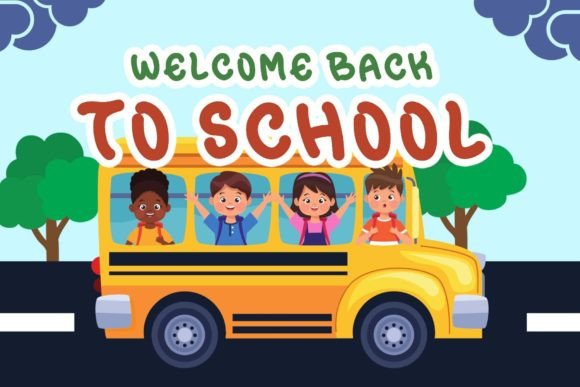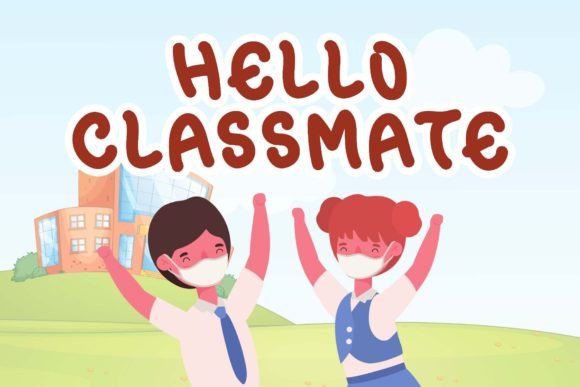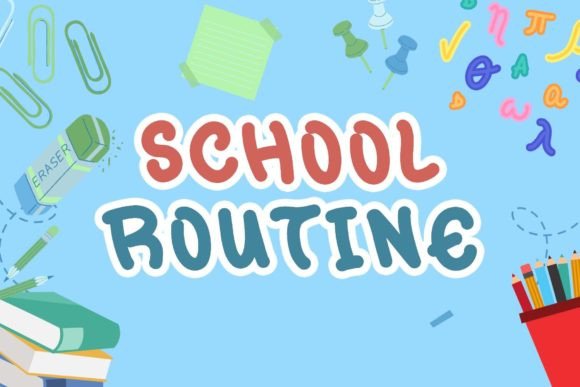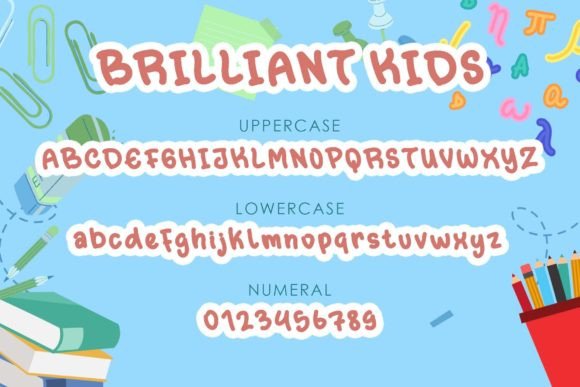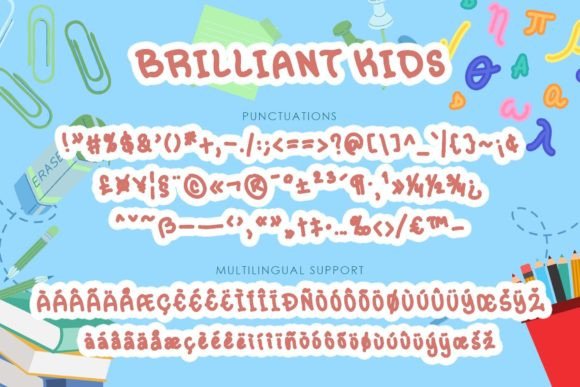
Unlocking Creativity with the Brilliant Kids Font
Do you remember the thrill of holding a freshly sharpened pencil, waiting for the school bell to ring, and diving into a world of imagination and creativity? For many of us, the back-to-school season is a time of nostalgia and excitement. As designers, we strive to capture this essence in our work, making it relatable and engaging for our audience.
That’s where the Brilliant Kids Font comes in – a charming display font designed specifically for kids and young at heart. With its playful characters, multilingual support, and versatility, this font is a treasure trove for designers looking to create eye-catching projects. Whether you’re working on a summer campaign, a Christmas card, or a graduation announcement, the Brilliant Kids Font is sure to bring a smile to your audience’s faces.
Brilliant Kids Font Key Features
- Unique Character Set: The Brilliant Kids Font features a custom-designed character set, including letters, numbers, and symbols, specifically tailored for young readers and writers.
- Font Size and Resolution: The font is designed to be highly legible at various font sizes and resolutions, making it suitable for digital and print applications.
- Color Variations: The font is available in a range of colors, including bold, italic, and regular styles, allowing for creative expression and flexibility in design.
- Accessibility Features: The Brilliant Kids Font includes features such as large x-height, open apertures, and clear letterforms, making it easier for children with visual impairments to read and write.
- Scalability: The font is designed to be highly scalable, ensuring that it remains legible and clear at various font sizes, from small text to large headings.
Designer Review: Brilliant Kids Font
✨ I was excited to dive into the Brilliant Kids Font, as the name suggests it’s tailored for a younger audience. Upon closer inspection, I found it to have some notable strengths. The font’s rounded edges and playful feel make it perfect for children’s books, educational materials, and even some casual digital projects. The font also comes with a range of weights and styles, which is always a plus for designers.
✨ Another aspect that shines is the font’s readability, even at smaller sizes. This is crucial for any font designed for kids, as they may not have the same level of visual acuity as adults. The font’s clear lines and open shapes make it easy on the eyes, which is a must-have for any kid-friendly font.
- ⚠️ Limited international support: The font only includes a limited set of languages, which may be a concern for designers working on global projects.
- ⚠️ Not ideal for complex text: The font’s playful feel may not be suitable for dense, complex text, such as long passages or technical information.
- ⚠️ Some characters may not be up to par: While the font’s overall design is solid, some individual characters may not be as refined as others.
Overall, the Brilliant Kids Font is a solid choice for designers working on kid-friendly projects. While it has some limitations, its strengths make it a great option for those looking for a fun and engaging font. With some tweaks to address its limitations, this font could be a real showstopper.
Brilliant Kids Font is perfect for creating engaging and playful designs for children’s products, educational materials, and more. Here are some tips to get the most out of this font:
- Use it in combination with bright colors and fun illustrations to create a playful atmosphere.
- Experiment with different font sizes and styles to add emphasis and create visual interest.
- Use it for headings and titles to add a touch of whimsy and personality.
Brilliant Kids Font is suitable for a wide range of